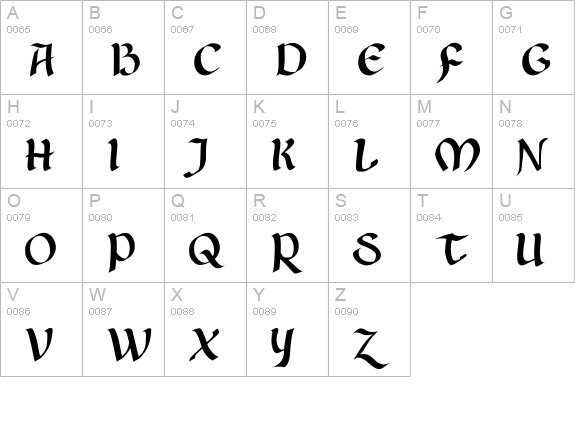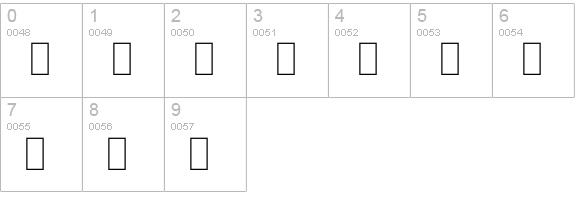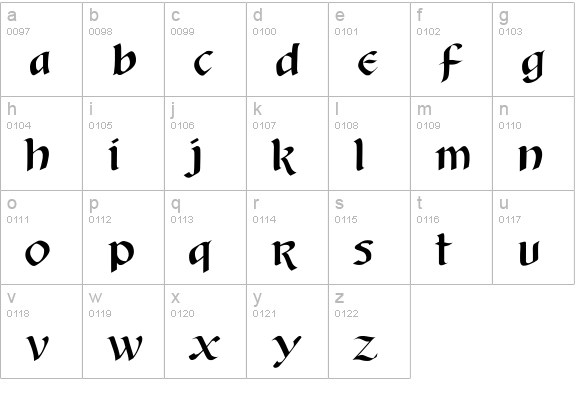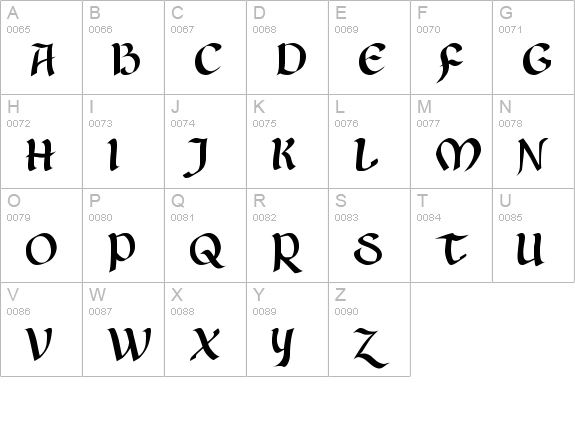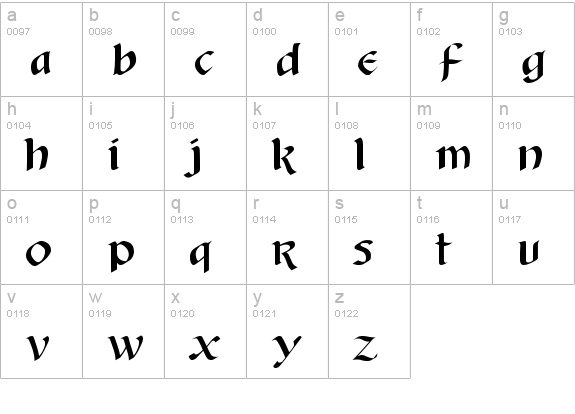
AuntJudy Font Details
AuntJudy font is a charming and whimsical typeface that exudes warmth and friendliness. With its elegant curves and playful details, this font is perfect for adding a touch of personality to your projects. Whether you're working on invitations, posters, or branding materials, AuntJudy will make your text stand out in a delightful way. Best of all, AuntJudy is available for free download at FontsMarket.com. This means you can easily access this lovely font and use it in your designs without any cost. Don't miss out on the opportunity to add AuntJudy to your font collection and bring a touch of joy to your creative projects. Download it today and let your imagination soar with AuntJudy font!